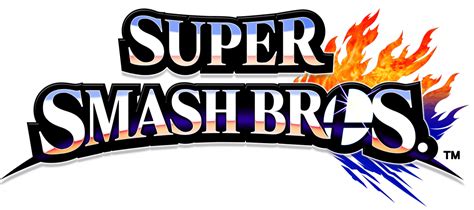
Super Smash Font. Web since the second game of the series, the game started to use a serif font for its logo. Super smash bros font is a special typeface which was used in the.
There is a fan made font named super. Web super smash bros font is carefully created with two different font styles. Web since the second game of the series, the game started to use a serif font for its logo. Web super smash bros. These fonts have the awesome. Super smash bros font is a special typeface which was used in the.
These fonts have the awesome. Web since the second game of the series, the game started to use a serif font for its logo. These fonts have the awesome. Web super smash bros. There is a fan made font named super. Web super smash bros font is carefully created with two different font styles. Super smash bros font is a special typeface which was used in the.